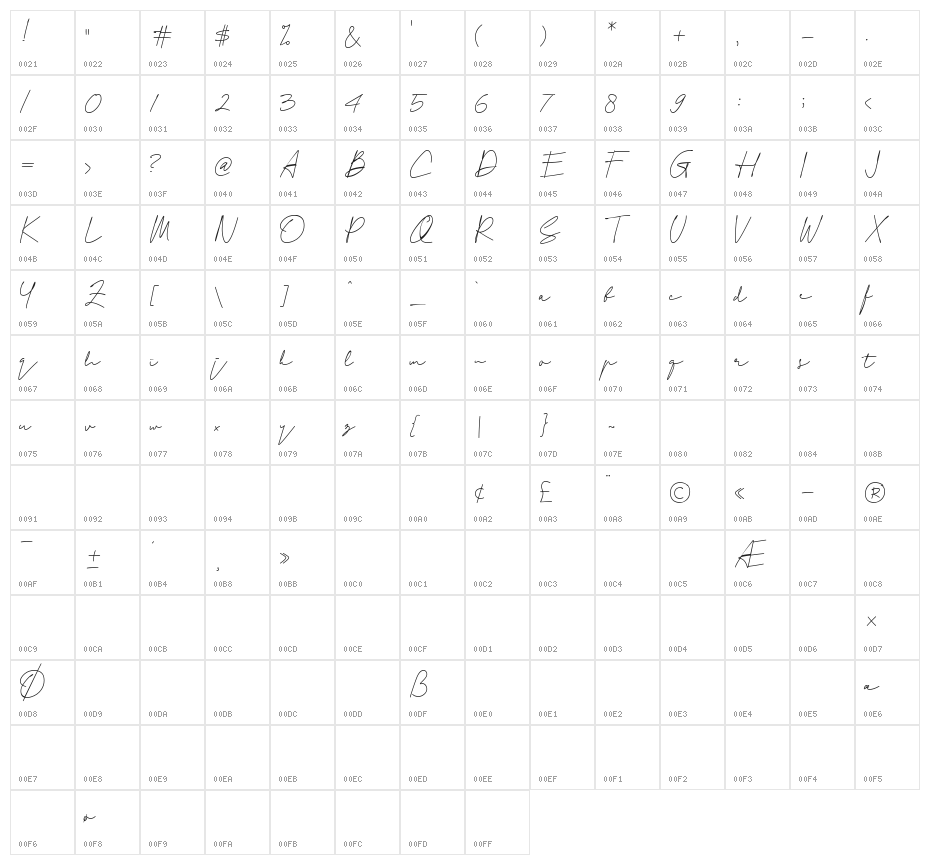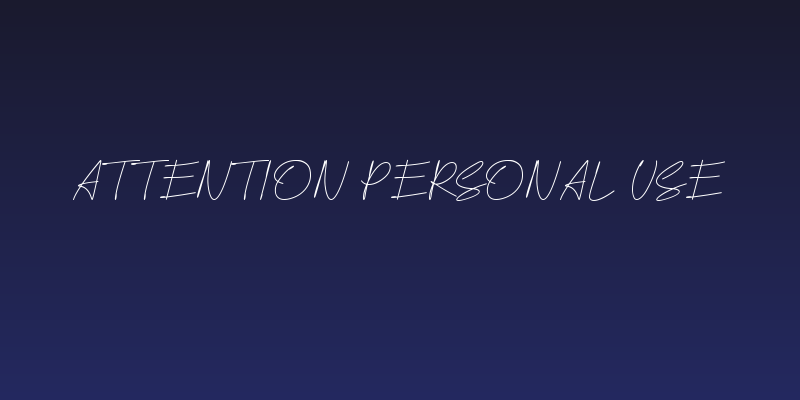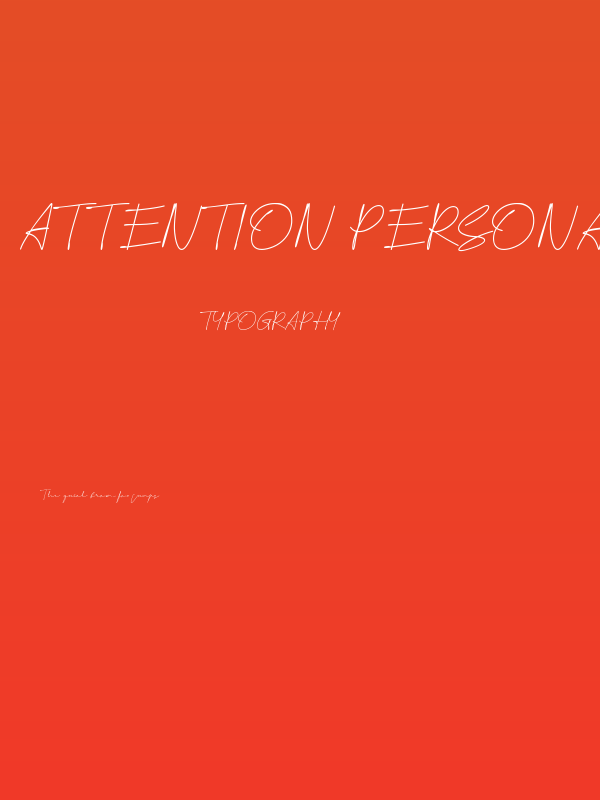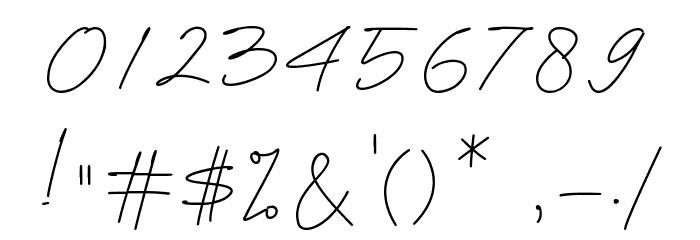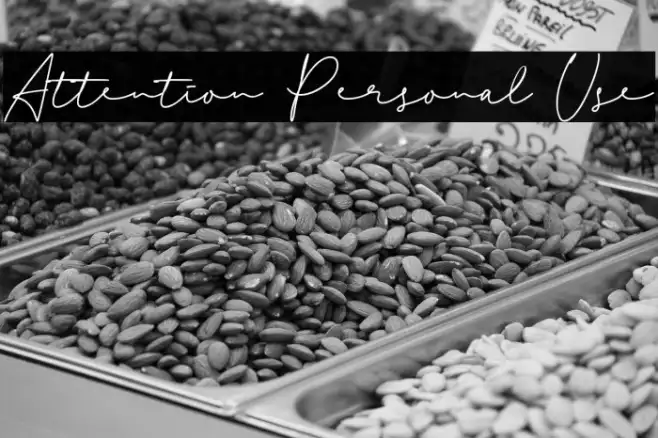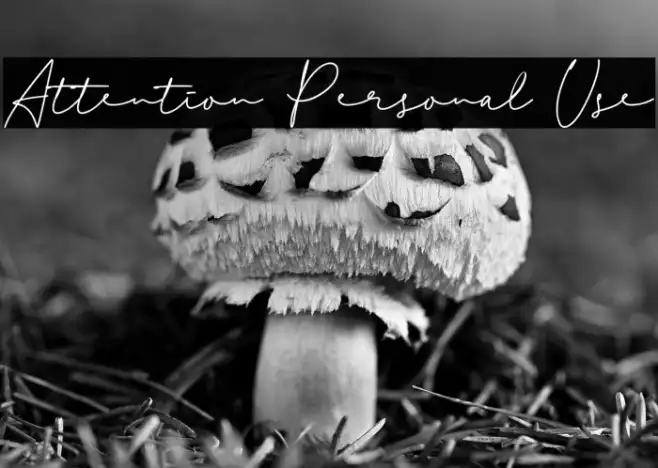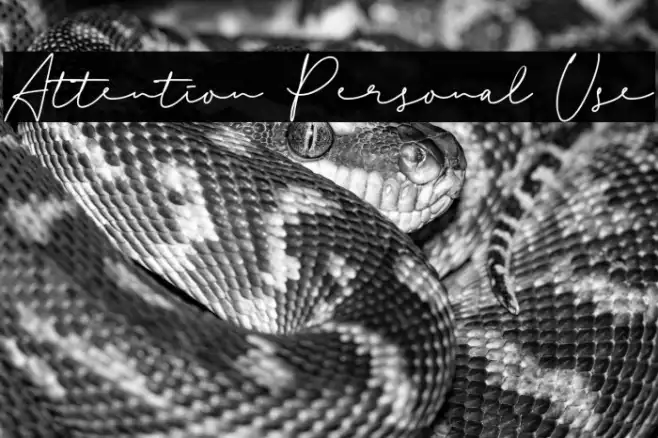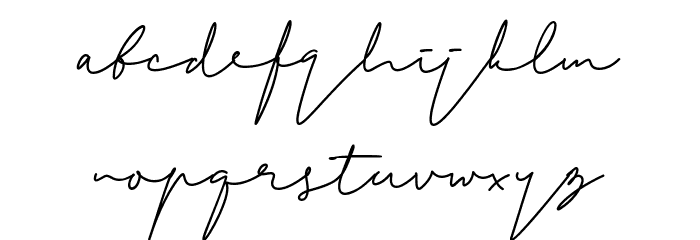
Attention Personal Use Font
Attention Personal Use Description
This font features a handwritten, cursive style with a fluid and elegant appearance. The letters are connected, giving it a natural and personal touch, reminiscent of a casual yet sophisticated handwriting. The uppercase letters maintain a consistent height, while the lowercase letters vary slightly in size, adding to the organic feel. The numbers and special characters are designed to match the overall aesthetic, with smooth curves and a balanced flow. This font is ideal for projects that require a personal, intimate, or artistic touch, such as invitations, greeting cards, or personal branding.